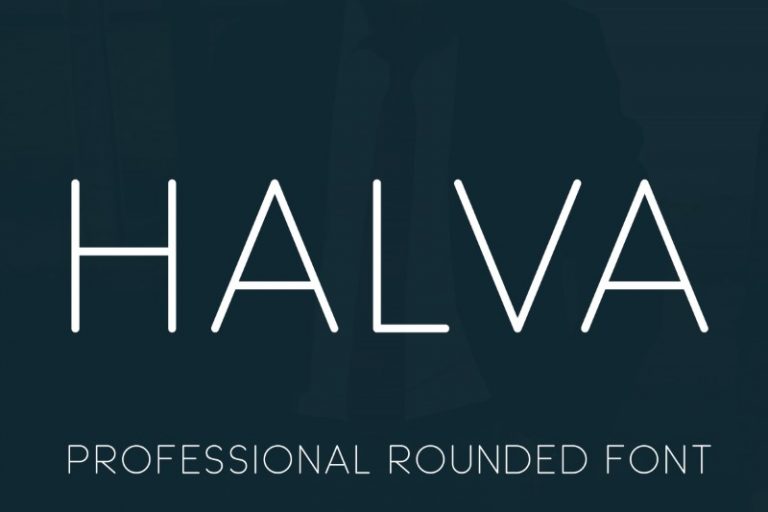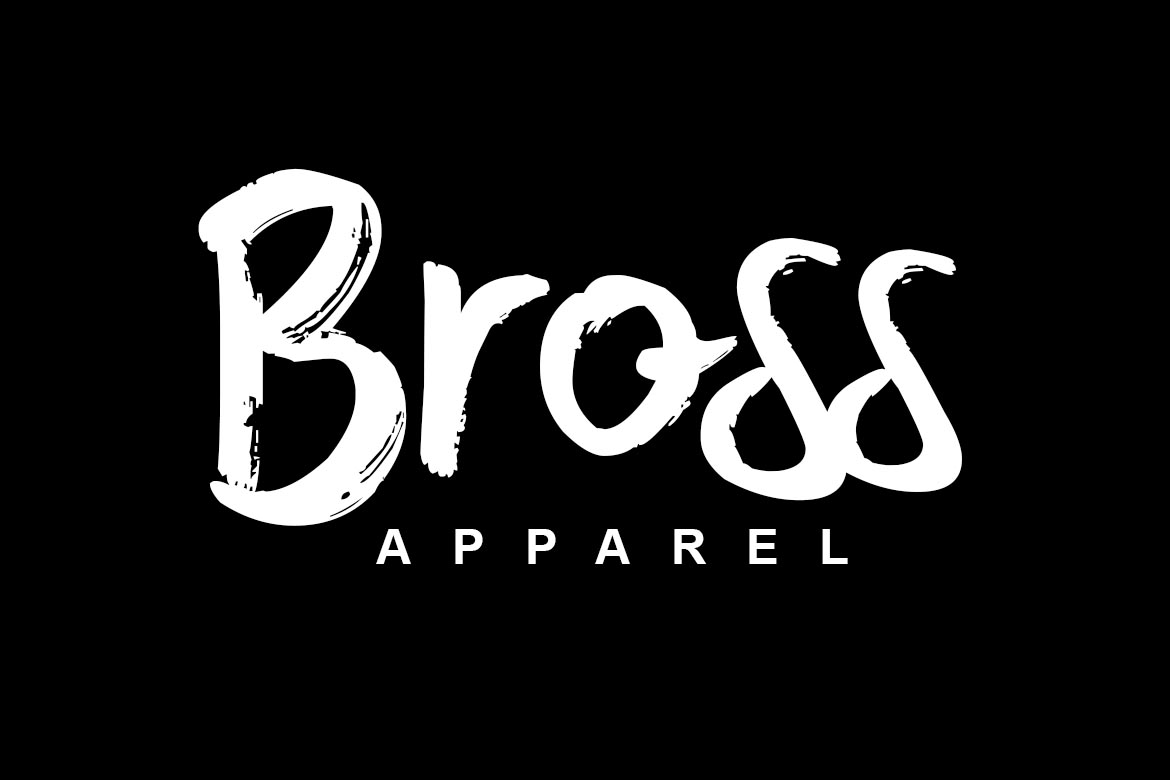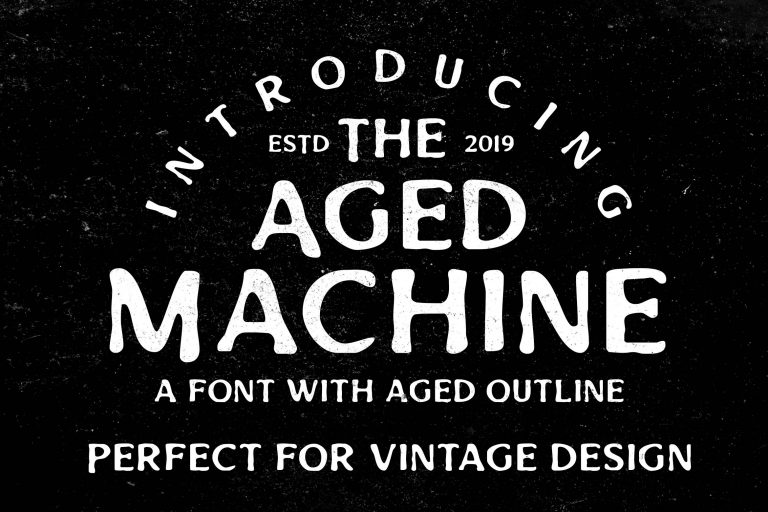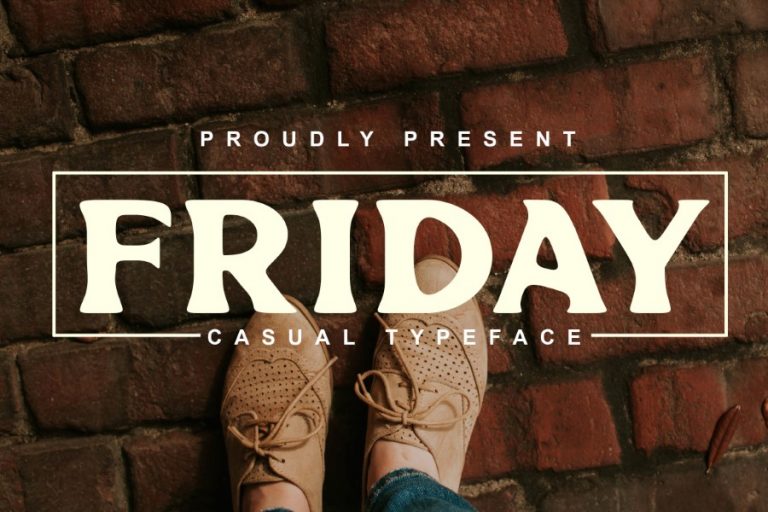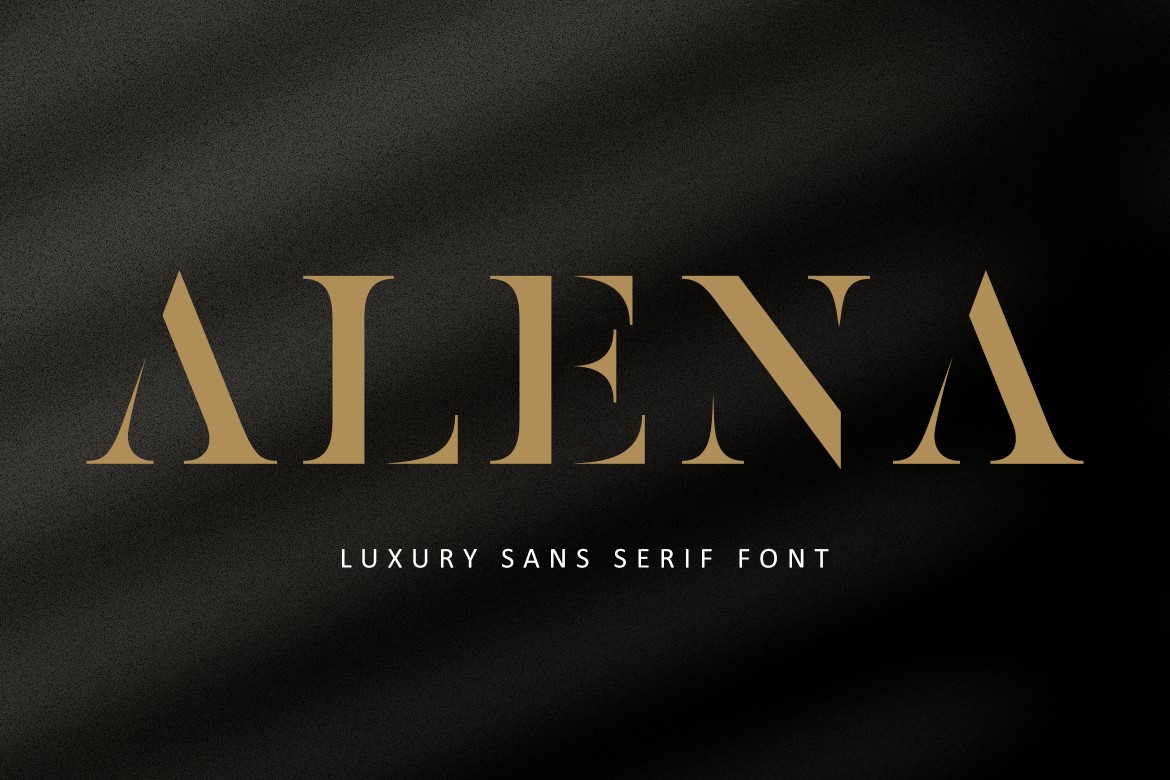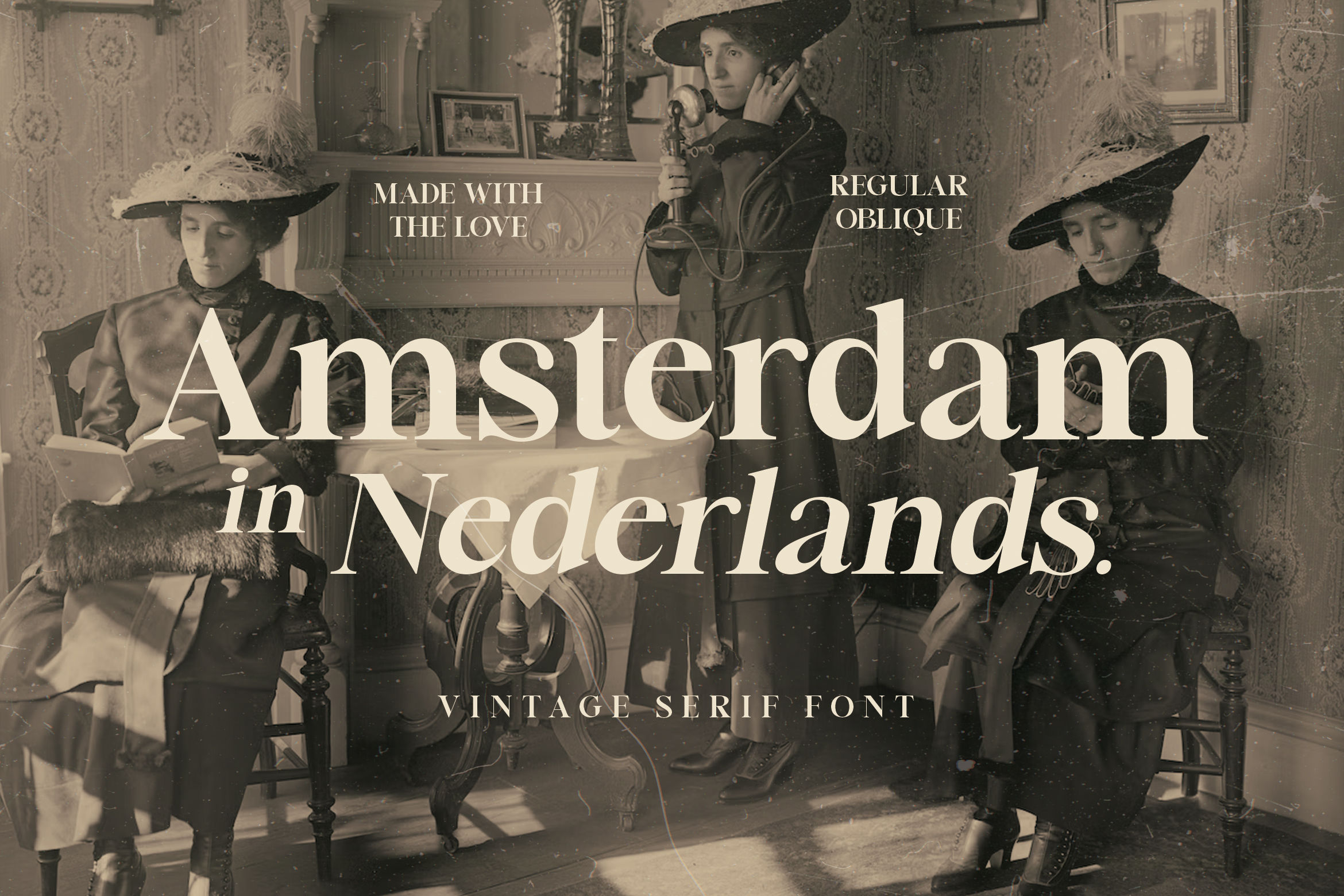
Choosing the best publication font to use for serious nonfiction is crucial for readability and credibility. A poor font choice can make a well-researched book look unprofessional and reduce its impact. With countless choices available, how can you determine the best one? Follow this guide to discover the best fonts for keeping readers engaged.
Key Takeaways
- Choosing the right font enhances readability, credibility, and the overall impact of a nonfiction book.
- Classic fonts like Times New Roman, Garamond, and Helvetica offer proven reliability for professional publications.
- Serif fonts are ideal for long-form reading, while sans serif fonts offer a clean, modern look for headings and digital formats.
Top 5 Best Publication Font to Use for Serious Nonfiction Books
Browsing endless font catalogs is like searching for a needle in a haystack. Thus, to simplify your decision, we’ve curated a list of five professional fonts perfect for nonfiction books, as outlined below.
1. Times New Roman
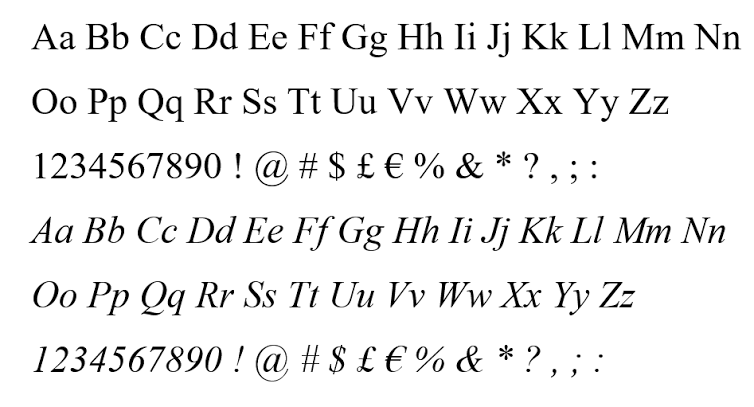
A timeless serif font dating back to 1931, Times New Roman remains a go-to choice for nonfiction publications. Its balanced letterforms ensure readability across different formats and screen sizes, making it ideal for long-form content.
2. Garamond
For a refined, academic feel, Garamond stands out as a classic serif font. Used in professional publishing since the 16th century, it combines elegance with excellent readability, making it perfect for scholarly or historical works.
3. Georgia
Designed for digital readability, Georgia is a widely used serif font that maintains clarity even at smaller sizes. Its high x-height and subtle curves create a polished and sophisticated look, both in print and on screens.
4. Helvetica
A clean, modern sans serif option, Helvetica is favored for its sharp, minimalistic appearance. It works well in both body text and headings, ensuring a sleek and professional look in nonfiction layouts.
5. Roboto
For a contemporary touch, Roboto offers a slightly condensed, geometric design that enhances readability. Its sleek, professional style makes it a great choice for modern nonfiction books.
15 More Professional Fonts for Nonfiction Books
Beyond the classic options, Lettersiro, a well-known font studio, offers a range of the best publication font to use for serious nonfiction. These fonts provide a mix of elegance, modernity, and readability, which makes them great alternatives. Let’s explore more options below!
6. Lettersiro Font Duo – Logotype Font
A versatile font pairing that combines a stylish script with a clean sans serif. It’s ideal for nonfiction books that require a touch of personality without sacrificing professionalism.
7. Modern Deluxe
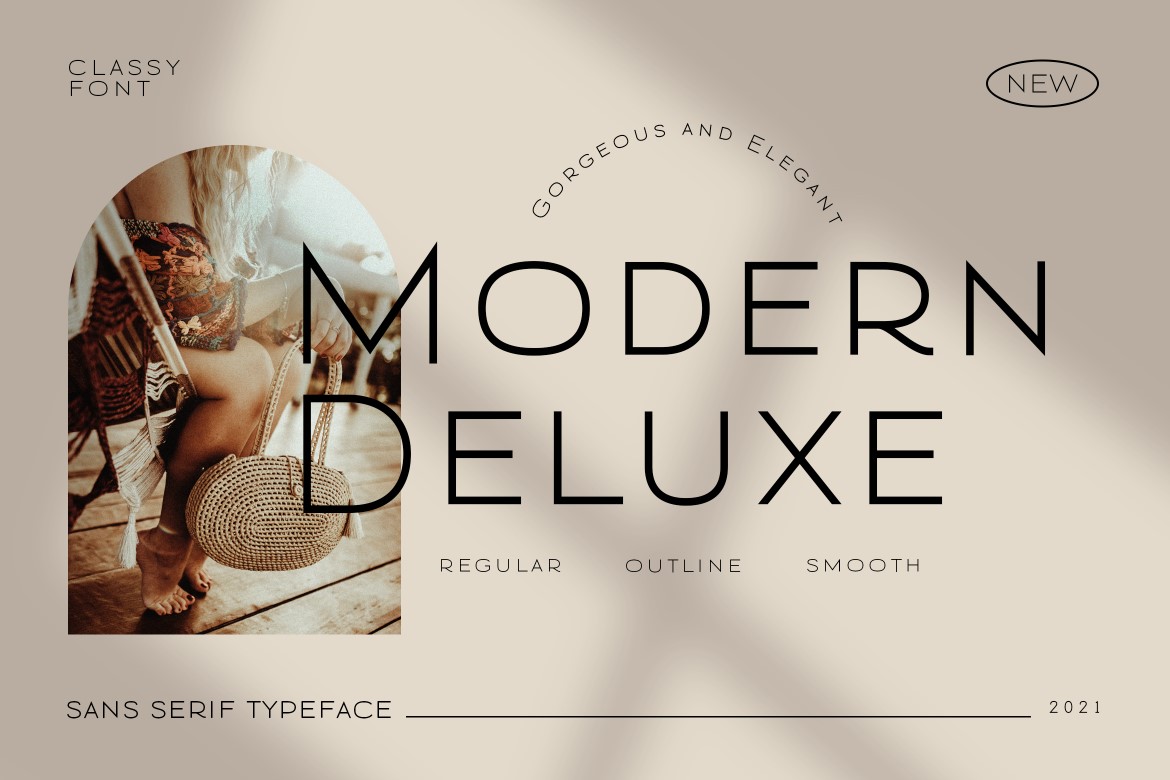
With sleek, high-contrast letterforms, Modern Deluxe adds a contemporary edge to nonfiction layouts, ensuring clear readability while maintaining a refined aesthetic.
8. Western Retro
This bold, vintage-inspired serif font brings a classic yet commanding presence to nonfiction titles, ideal for books with historical or cultural themes.
9. Today Easter
A clean, modern serif with soft curves, Today Easter ensures excellent readability for body text while adding a sophisticated touch to chapter headings.
10. Halva
A simple yet stylish sans serif font, Halva is perfect for nonfiction books that require a minimalist yet professional look, ensuring a smooth reading experience.
11. Amsterdam Serif
A highly legible and elegant serif font, Amsterdam Serif blends traditional book typography with modern refinements, making it suitable for formal and academic works.
12. Gojira Black
Bold and impactful, Gojira Black is ideal for eye-catching nonfiction covers or chapter titles, adding weight and authority to the text.
13. Almond
With a soft, rounded design, Almond provides a warm and friendly appearance while maintaining readability, making it a great choice for self-help or lifestyle books.
14. Aged Machine
Aged Machine is one of the best font to use for serious nonfiction that’s perfect for books about history, industry, or mechanics.
15. Friday Font
A clean, well-structured sans serif, Friday Font offers excellent legibility across print and digital formats, making it a solid choice for nonfiction books that have a friendly and nostalgic tone.
16. Paladise Retro Font
This retro-inspired serif font delivers a nostalgic yet professional feel, suitable for books that explore design, fashion, or history.
17. Night Mango
A modern sans serif with regular and italic versions, Night Mango provides a sleek and polished look for nonfiction books with modern and classic layouts.
18. Sandiego
This elegant serif font features balanced proportions and refined letterforms, ensuring readability for creative nonfiction, like motivational and travel books, while adding a touch of sophistication.